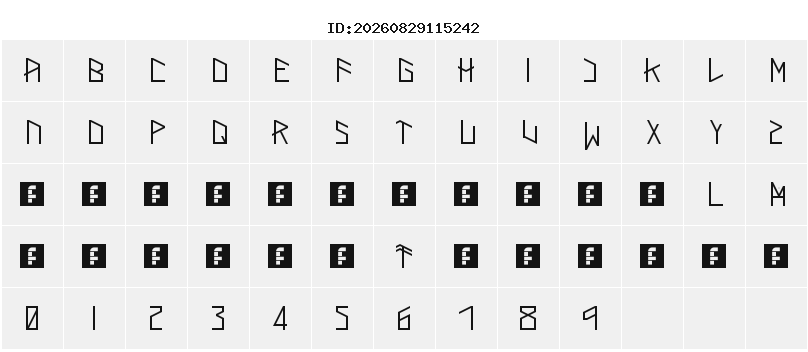
• Font Name: Thor's Mark
• Full Font Name: Thor's Mark Regular
• Designer: spgagle
• Description: ‚ÄúThor's Mark‚Äù was built with FontStruct
About Thor's Mark.ttf
Thor's Mark.ttf is a modern, elegant sans-serif font designed for ultimate readability and visual harmony. Perfect for branding, headlines, web design, and print materials.